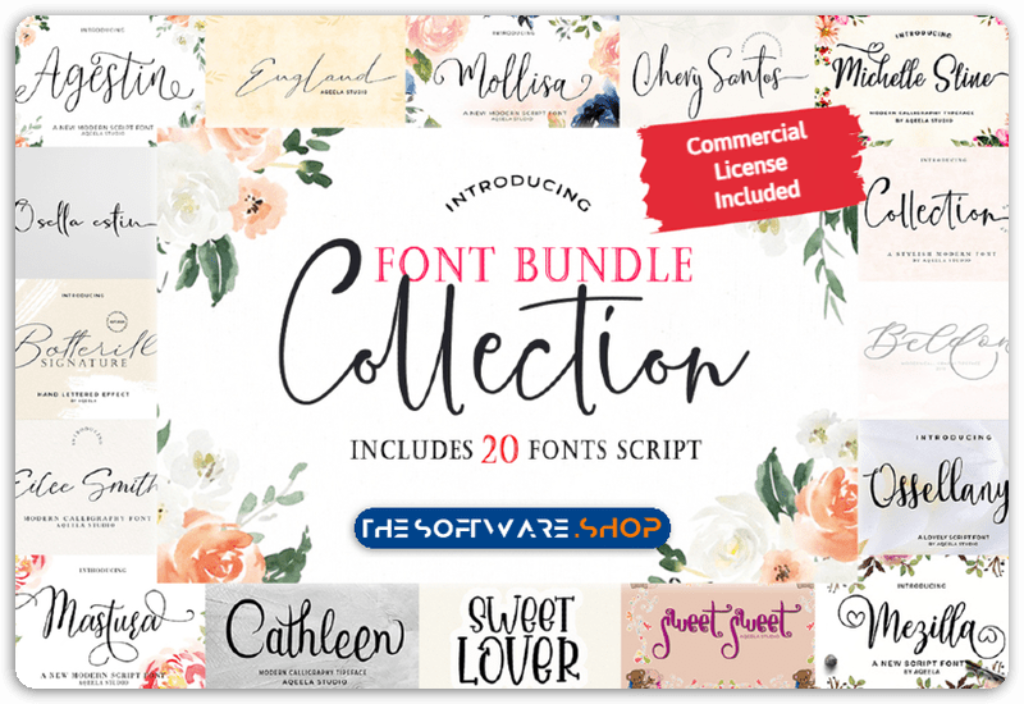
- Scary Monogram By Aqeela Studio: A very unique and spooky decorative font. – $15.00
- Mezilla By Aqeela Studio: A smooth, elegant and flowing handwritten font. -$15.00
- Mastura By Aqeela Studio: It feels equally charming and elegant. – $12.00
- Sweet Lover By Aqeela Studio: A cute and colorful display font – $12.00
- Ossellany Script By Aqeela Studio: A modern calligraphy font with an elegant touch. – $2.00
- Beldon By Aqeela Studio: A beautiful and charming handwritten font with a unique feel. – $2.00
- Botterill By Aqeela Studio: A flowing handwritten font. – $12.00
- Matthias By Aqeela Studio: An elegant and flowing handwritten font. – $12.00
- Mollisa By Aqeela Studio: It feels equally charming and elegant. – $12.00
- Sweet Sweet By Aqeela Studio: A dreamy handwritten font. – $12.00
- Chery Santos By Aqeela Studio: It feels equally charming and elegant – $12.00
- Cathleen Script By Aqeela Studio: A modern calligraphy font. – $2.00
- Eilee Smith By Aqeela Studio: An elegant and flowing handwritten font. – $12.00
- Collection By Aqeela Studio: An elegant and flowing handwritten font. – $12.00
- Osella Estin By Aqeela Studio: A natural handwritten font. – $2.00
- Brittany Coleman By Aqeela Studio: A graceful and timeless handwritten font. – $12.00
- England By Aqeela Studio: A stunning script font with a one-of-a-kind feel. – $2.00
- Michelle Stine Script By Aqeela Studio: A modern calligraphy font. – $2.00
- Bella Madelyn Script By Aqeela Studio: A modern calligraphy typeface. – $2.00
- Agestin By Aqeela Studio: An incredibly thin, delicate and elegant handwritten font. – $12.00
Get these modern calligraphy fonts, with dancing and elegant characters along a baseline. Opentype features alternative styles, ligatures, and multiple language support. Can be used for various purposes such as logos, wedding invitations, headings, t-shirts, letterheads, signage, labels, news, posters, badges, etc.